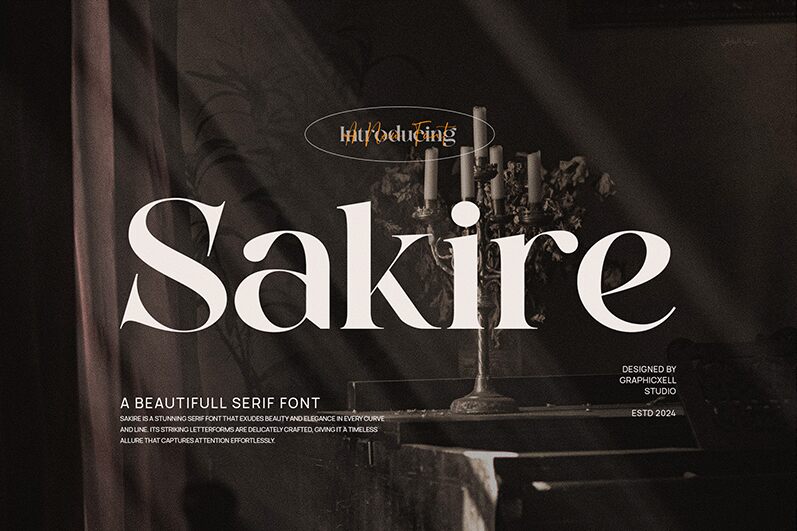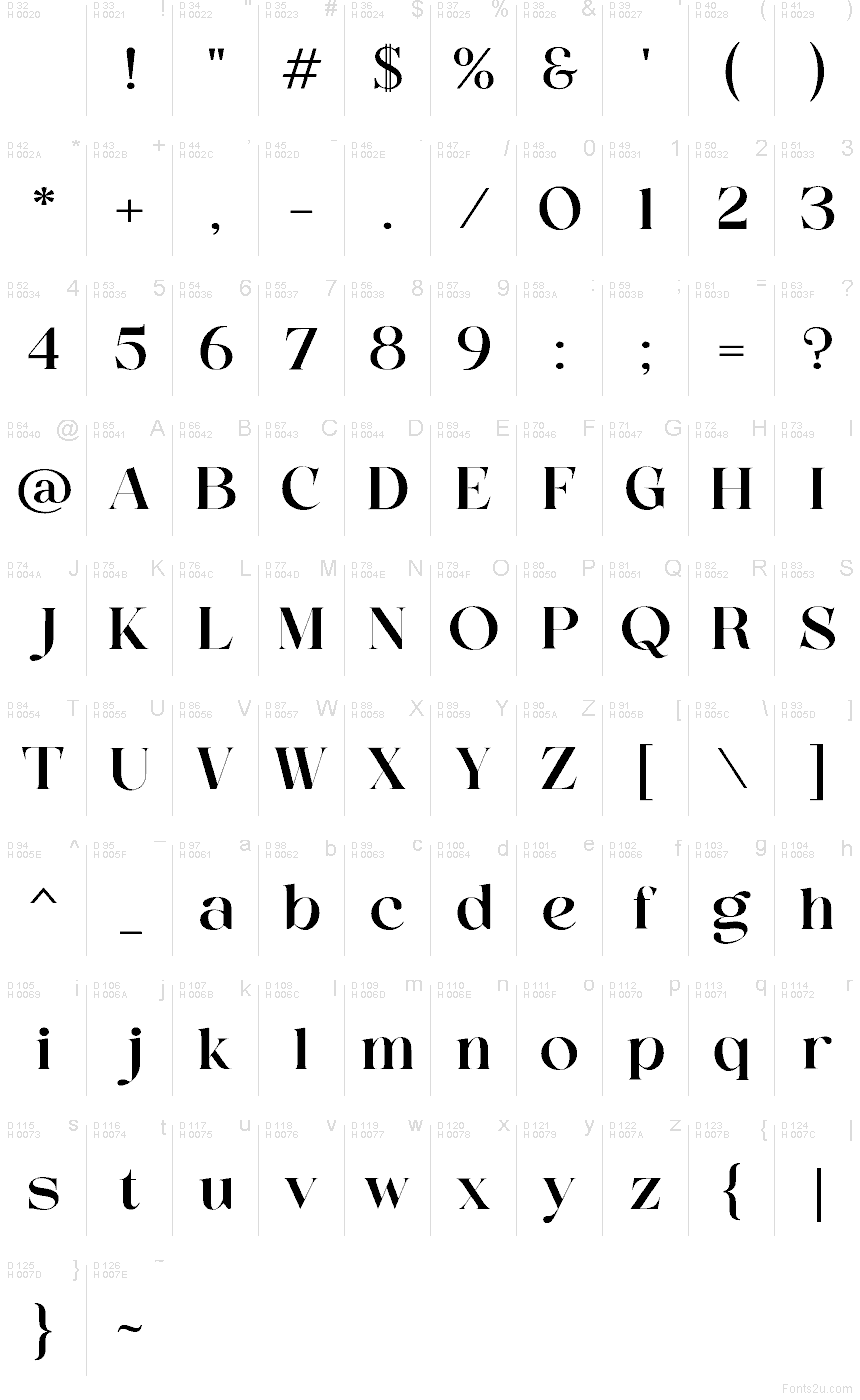
Sakire
Sakire font by Graphicxell is a free serif typeface with an unapologetically bold, sculpted look. Thick, inky strokes slice into fine, tapering curves, creating a dramatic rhythm that feels both luxurious and a bit rebellious. The letterforms feel carved rather than drawn, with swooping shapes and tight spacing that pull the eye across a word in one smooth motion.
Using Sakire, headlines instantly gain that boutique-editorial feel you usually only see in high-end magazines and fashion branding. This free font shines on logos, packaging, book covers, posters, social media graphics, and statement invitations where you want drama and polish in the same breath. For a balanced system, pair Sakire with a simple geometric sans in smaller text and let Sakire own the big, attention-grabbing titles.